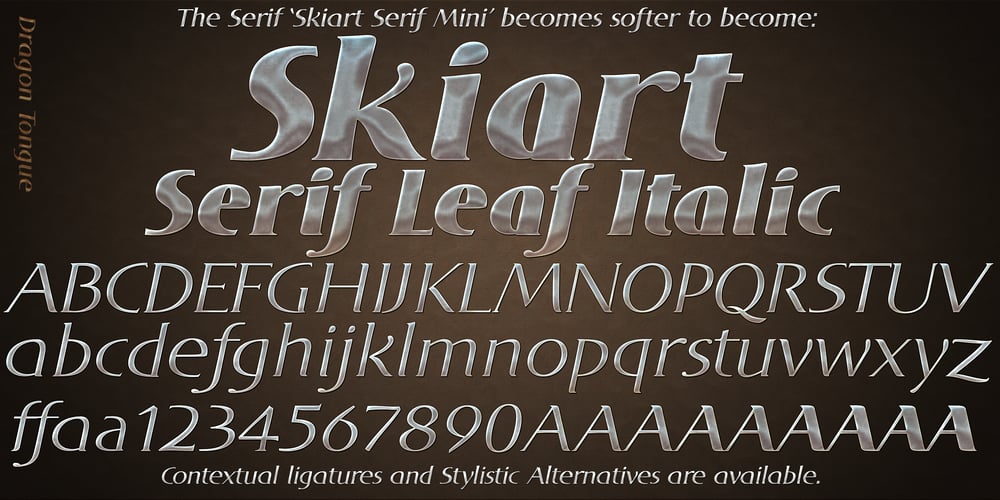
DT Skiart Serif Leaf Font Family was designed by Scott Spensley and published by Dragon Tongue Foundry. DT Skiart Serif Leaf contains 18 styles and family package options. ‘Skiart Serif Leaf’ has been on a long growing path getting to where it is now.Originally inspired by the san serif font ‘Skia’ by Mathew Carter for Apple. ‘Skiart’ was designed to feel more like a serifed font, but without any serifs. It took a step between sans serif and serif fonts. Next on the path towards a serif font came Skiart Serif Mini, with tiny serifs added. This was a true serif font, although they were subtle.This font ‘Skiart Serif Leaf’ is the next in the series.After many reiterations, ‘Skiart Serif Leaf’ was built and rebuilt many times until finally, this version deserved to be presented to the world. Style and flow had been added to this font. It remained fully readable and feels as clean and normal as any of the best body copy serifs, and yet has an original modern flair to it. The font feels strong and solid while having a subtle organic flow in its form.If compared to one of the more commonly used serifs like ‘Times New Roman’, the ‘Skiart Serif Leaf’ lowercase is more open with a taller x-height, increasing its readability and friendliness. The serifs are smaller and less distracting. They are not pretending to be ligatures. This font may be organic but is not in anyway script like. Where ‘Times’ makes its p q b d forms out of a barely touching oval and stem, the ‘Serif Leaf’ forms are much more firmly attached, appearing clearly as single letters. The standard setting for the a’s and g’s are round single story, feeling warmer and more inviting in the ‘Serif Leaf’ font. Much more friendly than the stuffy double storied versions in fonts like ‘Times’ etc.‘Skiart Serif Font’ comes with a somewhat organic italic.